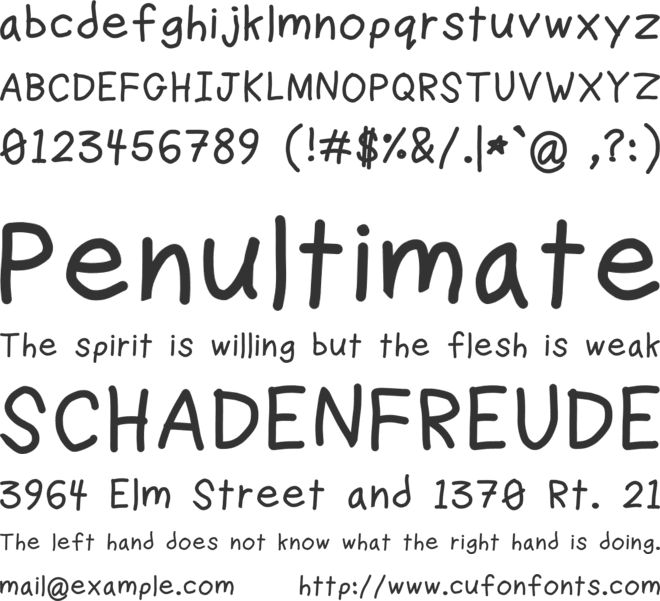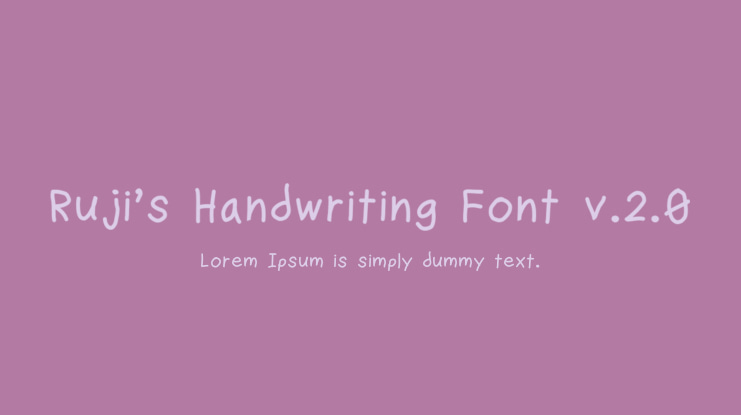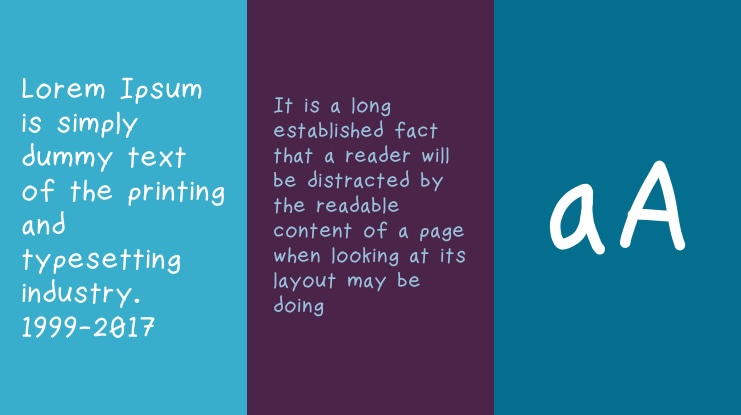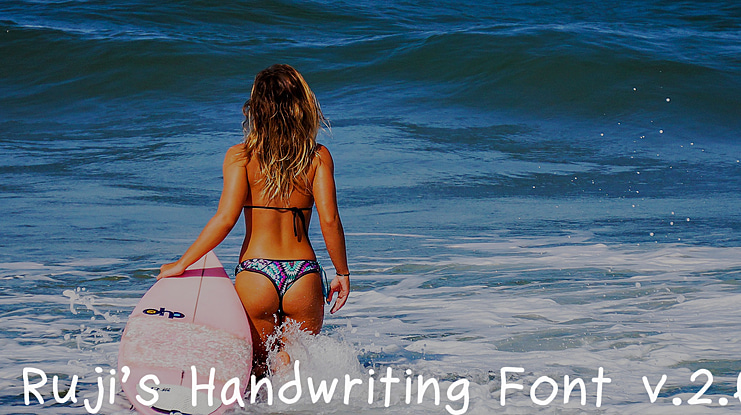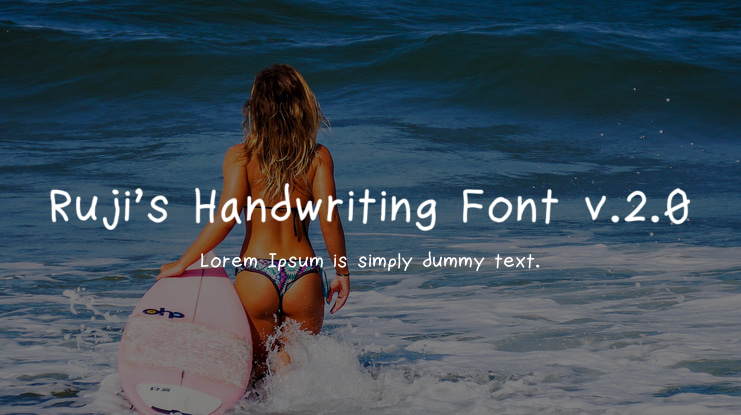
Ruji's Handwriting Font by has been used in the Don Depresso webcomic (http://dondepresso.rujic.net) and printed books (http://rujic.net/u/books). This version of Ruji's Handwriting Font has more symbols and improved readability compared to the previous version.